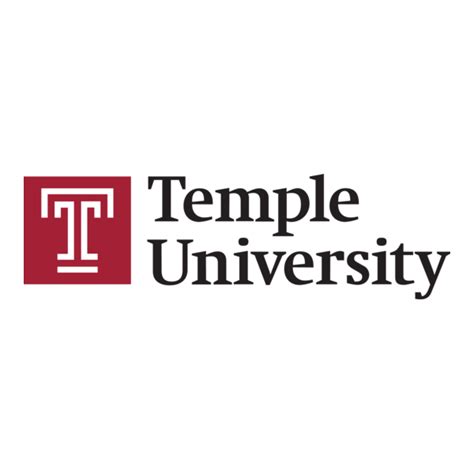
Temple University Logo Font: A Deep Dive
What’s the deal with the Temple University logo font , guys? Ever wonder what makes that iconic “TU” look so distinct? Well, you’ve come to the right place! We’re going to break down the typography that represents this historic institution, giving you the lowdown on its design, history, and why it matters. Understanding the font used in a university’s logo is like getting a peek behind the curtain; it tells a story about the university’s identity, its values, and how it wants to be perceived. For Temple, this font choice is no accident. It’s a carefully selected piece of visual branding that communicates a sense of tradition, academic rigor, and a forward-thinking spirit. So, buckle up as we explore the world of the Temple University logo font and uncover what makes it so special. We’ll be diving deep into the specifics, so if you’re a design buff, a Temple alum, or just curious, there’s something here for everyone. Let’s get started on this typographic adventure!
The Anatomy of the Temple University Logo Font
Alright, let’s get down to the nitty-gritty of the Temple University logo font . The most recognizable element is, of course, the iconic interlocking “TU” mark. While the university uses various typefaces across its branding, the primary font associated with the official logo and wordmark is a custom-designed typeface. It’s often described as a strong, sans-serif font . Sans-serif fonts, for those not in the know, are fonts that don’t have the little decorative strokes (called serifs) at the ends of the letters. Think clean lines and modern aesthetics. The Temple font embodies this, offering a sense of clarity, stability, and directness. It’s not overly stylized or flamboyant, which is precisely its strength. The letters are well-balanced, with consistent stroke widths, giving it a professional and authoritative feel. The way the “T” and “U” interlock in the primary mark is a masterclass in custom logotype design. It creates a unique, memorable symbol that is instantly recognizable. This interlocking feature isn’t just for show; it symbolizes unity, connection, and the strong bond between students, faculty, and the university community. The boldness of the font also conveys a sense of confidence and resilience, traits that Temple aims to instill in its students and reflect in its academic pursuits. When you see this font, you immediately get a sense of a serious, established institution, but one that is also dynamic and contemporary. It’s a delicate balance, and Temple’s typographic choice nails it. The overall impression is one of reliability, academic excellence, and a vibrant campus life . This isn’t just random lettering; it’s a strategic visual element designed to communicate a powerful message about who Temple is and what it stands for. The font contributes significantly to the university’s visual identity, making it stand out in a crowded academic landscape. We’ll explore how this font has evolved and where else you might see it in action.
Evolution and Usage of Temple’s Typography
Now, let’s chat about how the Temple University logo font has evolved and where you’re likely to spot it. Like many long-standing institutions, Temple’s visual identity, including its typography, has seen refinements over the years. While the core elements often remain, subtle changes can occur to keep the branding fresh and relevant. The primary focus has always been on creating a strong, recognizable mark. The current iteration of the logo and wordmark reflects a modern interpretation, emphasizing clarity and impact. You’ll see the official Temple wordmark, which uses a distinct sans-serif typeface, prominently displayed on official university communications, websites, athletic apparel, and signage across campus. This font is chosen for its legibility and its ability to convey a sense of established prestige. Beyond the main logo, Temple employs a broader typographic system for different applications. This usually includes a primary sans-serif font for headlines and a complementary serif or sans-serif font for body text. These secondary fonts are selected to work harmoniously with the main logo font, ensuring a cohesive brand experience across all platforms. For instance, you might see a clean, readable sans-serif for web content and promotional materials, maintaining that sense of modernity and accessibility. However, the essence of the official logo font – its boldness, its clean lines, and its solid presence – permeates the entire typographic hierarchy. It’s this consistency that builds brand recognition and trust. Think about it: every time you see that distinctive “TU” or the official wordmark, you instantly associate it with Temple. This is the power of well-executed branding. The university aims for its typography to reflect its core values: academic achievement, community engagement, and innovation . So, whether it’s a formal document or a casual flyer, the font choice is always considered. This meticulous attention to detail in typography is crucial for maintaining a professional image and ensuring that Temple’s message is communicated effectively to its diverse audiences, from prospective students to alumni and the wider community. It’s not just about looking good; it’s about communicating identity and purpose. We’ll delve into the specific font families that complement the logo and how they contribute to the overall brand voice.
Exploring Complementary Typefaces
Beyond the core Temple University logo font , the university employs a suite of complementary typefaces to ensure brand consistency across all its communications. These secondary fonts are crucial for building a comprehensive visual identity that feels unified and professional. When selecting these accompanying fonts, designers consider several factors: legibility, versatility, and how well they harmonize with the distinctive characteristics of the main logo font. Typically, universities opt for a combination of sans-serif and serif fonts to cater to different needs. A highly readable sans-serif font is often chosen for digital applications, such as websites and social media, as well as for headlines and subheadings in print materials. These fonts are characterized by their clean lines and modern appearance, mirroring the directness and clarity of the main logo. They ensure that information is easily digestible, whether it’s a student reading an announcement online or a visitor navigating the university’s campus map. On the other hand, a well-chosen serif font might be used for longer blocks of text, like in academic publications, official reports, or brochures. Serif fonts, with their traditional embellishments, can lend an air of formality, gravitas, and scholarly authority, which aligns perfectly with the academic mission of a university. The contrast between a bold, modern sans-serif logo and a more classic serif for body copy can create a dynamic yet balanced visual appeal. It strikes a chord between the university’s contemporary dynamism and its deep-rooted academic traditions. The goal is to create a typographic ecosystem where each font serves a specific purpose while contributing to the overall brand narrative. This thoughtful selection ensures that whether you’re reading a T-shirt slogan or a doctoral thesis, the underlying visual language speaks of Temple’s quality and identity. It’s about ensuring that every piece of communication, no matter how small, reinforces the university’s established presence and forward-thinking vision. This strategic use of typography is what helps build a strong, lasting impression on everyone who interacts with the Temple brand. So, next time you see Temple’s branding, pay attention not just to the logo, but to the supporting cast of fonts – they’re working hard to tell the university’s story.
Why Font Choice Matters for University Branding
Alright guys, let’s talk about why the font choice, specifically the Temple University logo font , is a really big deal in the world of university branding. It’s way more than just picking pretty letters, you know? A university’s logo font is like its voice, its personality. It’s one of the first things people notice, and it instantly communicates a whole bunch of subconscious messages. For Temple, opting for a strong, sans-serif font for its primary mark sends signals loud and clear. Think about it: sans-serif fonts often convey modernity, efficiency, and approachability . This aligns perfectly with a university that prides itself on being a dynamic urban institution, fostering innovation and accessibility. The boldness of the font choice speaks to Temple’s strength, resilience, and commitment to academic excellence . It’s a font that doesn’t shy away, much like the university itself. In contrast, a very ornate, traditional serif font might suggest an older, more insular institution, which might not be the message Temple wants to send. The interlocking “TU” design itself, crafted with this specific font, is a visual representation of unity and connection – key elements of any strong university community. This isn’t just about aesthetics; it’s about strategic communication. The font helps build brand recognition and trust . When students, alumni, faculty, and the public see that consistent typography across various platforms – from diplomas to websites to sports jerseys – it reinforces the university’s identity and creates a sense of familiarity and reliability. It helps differentiate Temple from other institutions, giving it a unique visual signature in a highly competitive academic landscape. Moreover, the font choice can influence perception. A clean, well-designed font suggests professionalism and attention to detail, implying that the university itself operates with the same level of care and precision in its academic programs and student services. Conversely, a poorly chosen or dated font could inadvertently suggest a lack of sophistication or outdated practices. Temple’s careful selection of its logo font demonstrates a commitment to presenting a polished, professional, and modern image, while also honoring its rich history and academic rigor. It’s a powerful tool in shaping how the university is seen and experienced by the world. So, next time you glance at the Temple logo, remember that every curve and line of that font is working overtime to tell a story about this incredible institution.
The Psychological Impact of Typography
Let’s get real for a second, guys. Typography isn’t just about making words look good; it has a serious psychological impact , and this is super relevant when we talk about the Temple University logo font . The specific style, weight, and shape of letters can actually trigger emotional responses and influence how we perceive things, like an entire university. For Temple, the choice of a bold, clean sans-serif font is a smart move. Sans-serif fonts, in general, are often associated with modernity, clarity, and a no-nonsense attitude. This can make the university seem more accessible, dynamic, and forward-thinking. Think about how the clean lines might subconsciously suggest efficiency and innovation – qualities any top-tier university wants to project. The boldness of the font, as we’ve touched on, is crucial. It communicates strength, stability, and confidence . It makes the university feel established and reliable, but not stuffy. It’s a font that says, “We are here, we are strong, and we are making an impact.” This psychological reinforcement is invaluable for branding. Imagine if the Temple logo used a very thin, wispy font. It might convey a sense of fragility or lack of substance, which is the opposite of what a major educational institution wants. Conversely, an overly complex or decorative font could feel dated or difficult to approach, potentially alienating students or parents who are looking for a clear, trustworthy institution. The interlocking nature of the “TU” also plays a role here. It visually reinforces concepts like unity, community, and collaboration , which are core to the student experience. This visual harmony can create a positive emotional connection with the brand. The legibility of the font is also key. When a font is easy to read, it makes the information it conveys feel more trustworthy and accessible. Temple’s choice ensures that their message is clear and unambiguous. Ultimately, the typography used in a university’s branding, starting with its logo, acts as a silent ambassador. It shapes perceptions, builds trust, and fosters a sense of identity and belonging. Temple’s strategic use of its logo font ensures it projects an image of strength, modernity, and academic excellence, resonating powerfully with its target audiences. It’s a testament to the fact that every design decision, no matter how small, can have a significant ripple effect on brand perception and overall success.
Case Studies in University Typography
Conclusion: The Lasting Impression of Temple’s Typography
So, there you have it, folks! We’ve taken a deep dive into the Temple University logo font , exploring its design, its evolution, and its significant impact on the university’s overall branding. It’s clear that Temple’s typographic choices are far from arbitrary; they are strategic decisions designed to communicate a powerful message. The bold, clean sans-serif font used in its primary logo and wordmark effectively conveys a sense of modernity, strength, and academic rigor. The iconic interlocking “TU” is not just a visual mark but a symbol of unity and connection within the Temple community. Furthermore, the careful selection of complementary typefaces ensures a consistent and professional brand identity across all platforms, reinforcing Temple’s image as a reputable and dynamic institution. We’ve seen how typography can profoundly influence perception, shaping subconscious associations with qualities like trustworthiness, innovation, and prestige. For Temple, this means projecting an image that is both established and forward-thinking, accessible yet academically excellent. The university’s commitment to its visual identity, including its typography, helps it stand out in a competitive landscape and forge a strong connection with its students, alumni, and the wider public. The Temple University logo font is, in essence, a silent ambassador, consistently communicating the university’s values and aspirations. It’s a testament to the power of design in shaping institutional identity and leaving a lasting impression. Whether you’re a current student, a proud alum, or simply an admirer of strong branding, understanding the nuances of Temple’s typography offers a valuable insight into how a university builds and maintains its unique identity in the modern world. It’s a blend of tradition, innovation, and a clear vision for the future, all encapsulated in those carefully chosen characters.